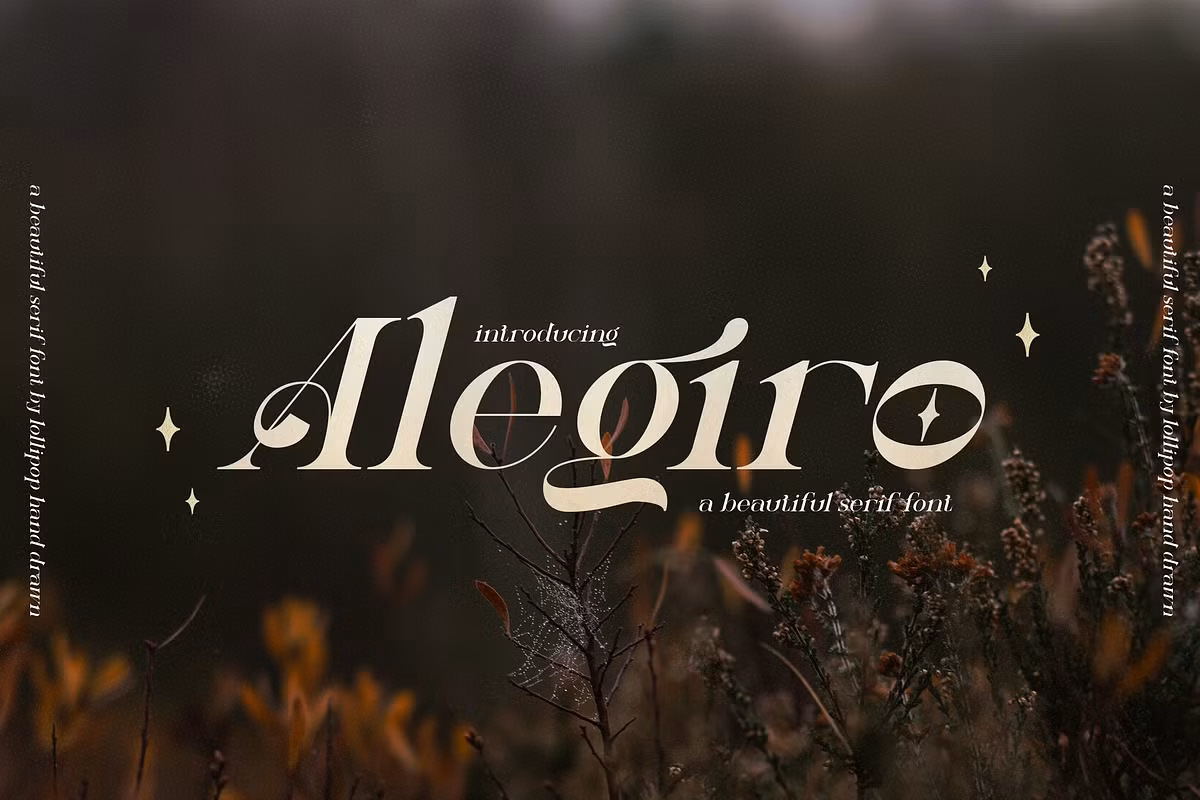
Sophisticated, clean, and highly versatile, Alegiro Serif Font Free Download is a modern serif typeface designed to bring elegance and readability to any design project. Perfect for branding, editorial layouts, websites, packaging, and logos, this font strikes the perfect balance between classic serif style and contemporary design.
With its refined letterforms, balanced proportions, and clear contrast, Alegiro is ideal for projects that demand both beauty and legibility. Whether you're working on a luxurious brand identity, a professional website, or a printed publication, Alegiro adds sophistication and clarity to your typography.